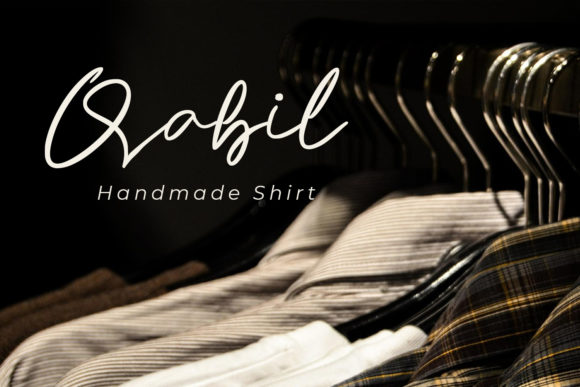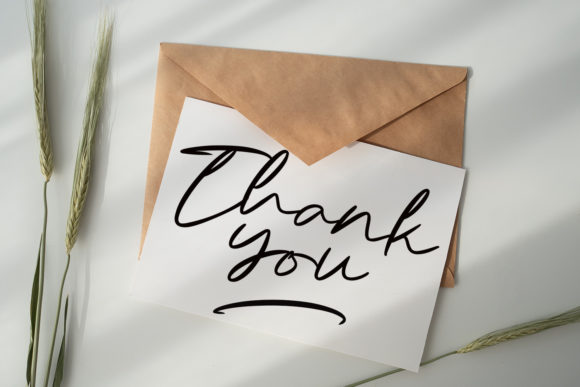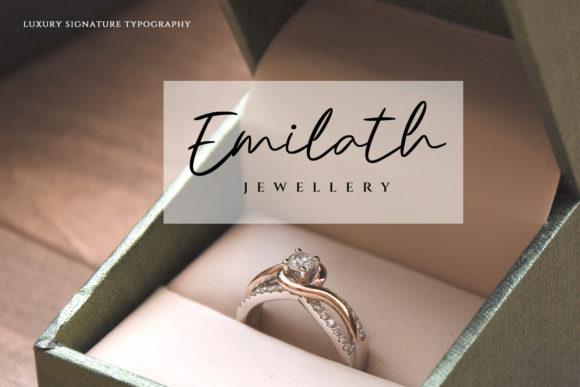
About Kencana Font
Kencana is a beautiful, stylish and vintage styled script font. It is defined by smooth curves and is perfect for fashion branding or editorial designs. Add it confidently to your projects, and you will love the results.